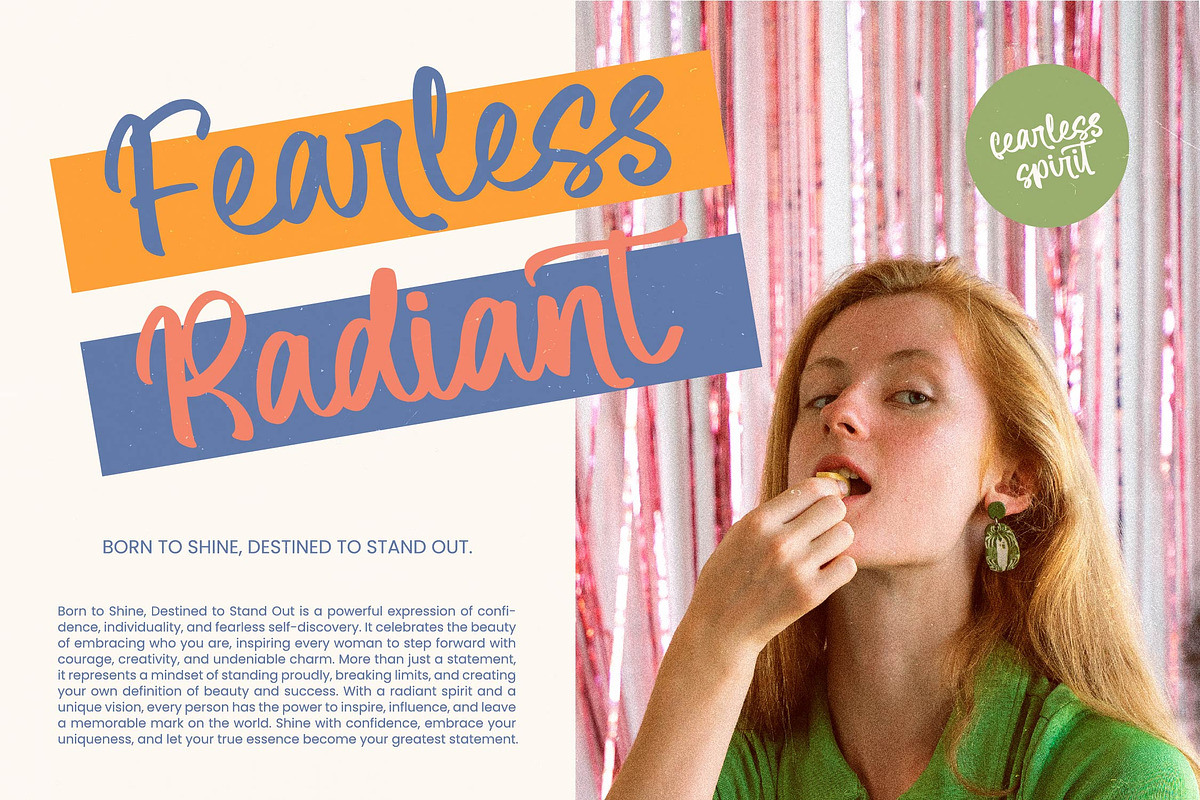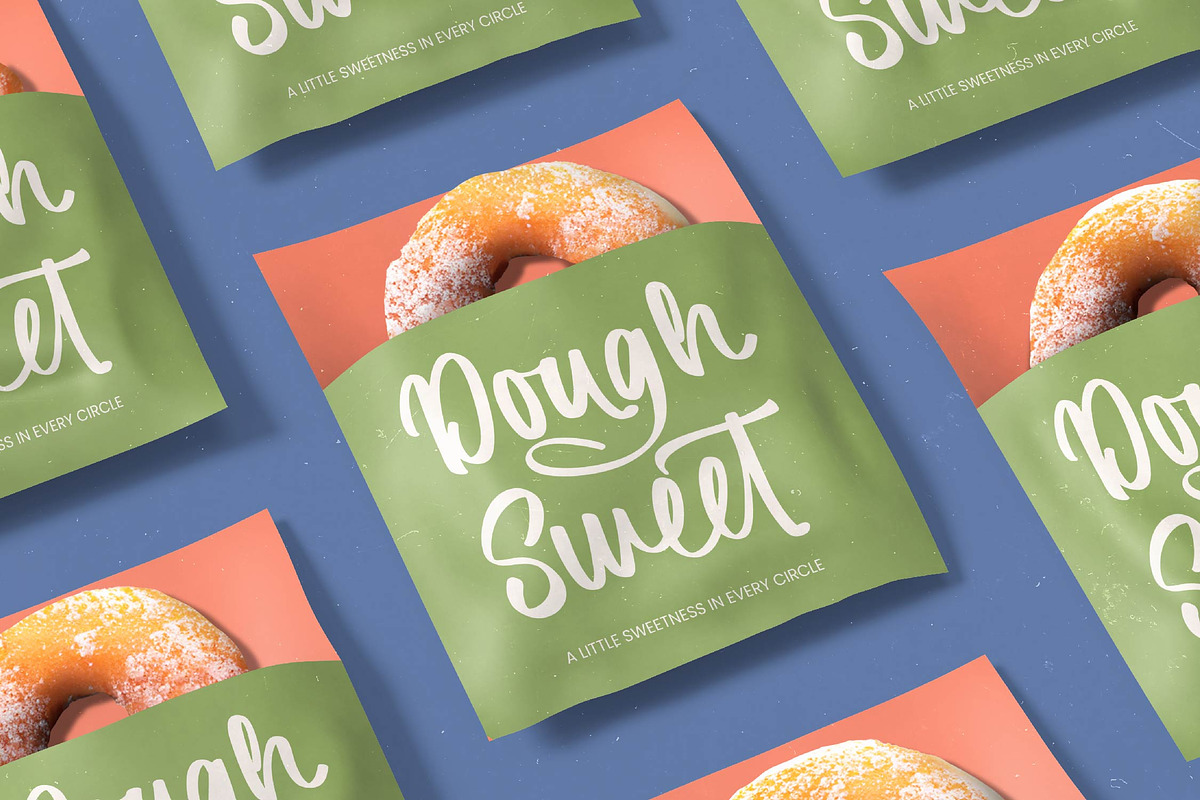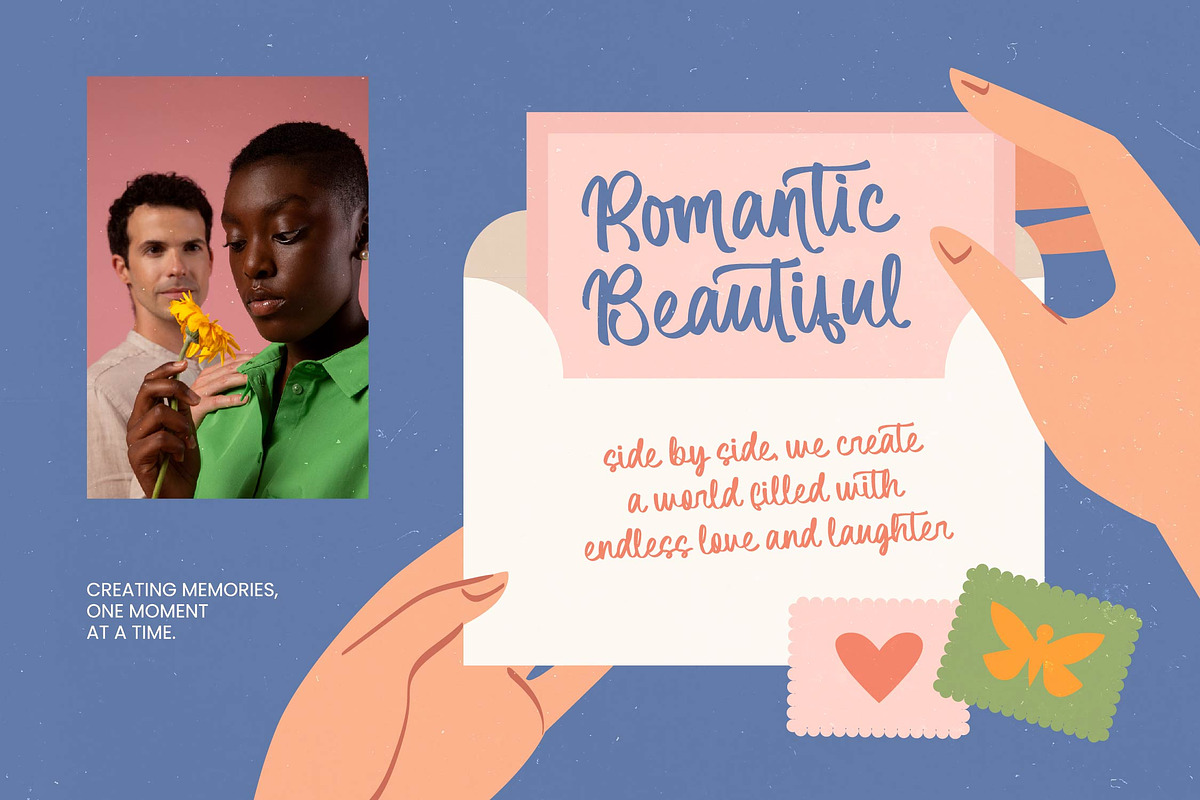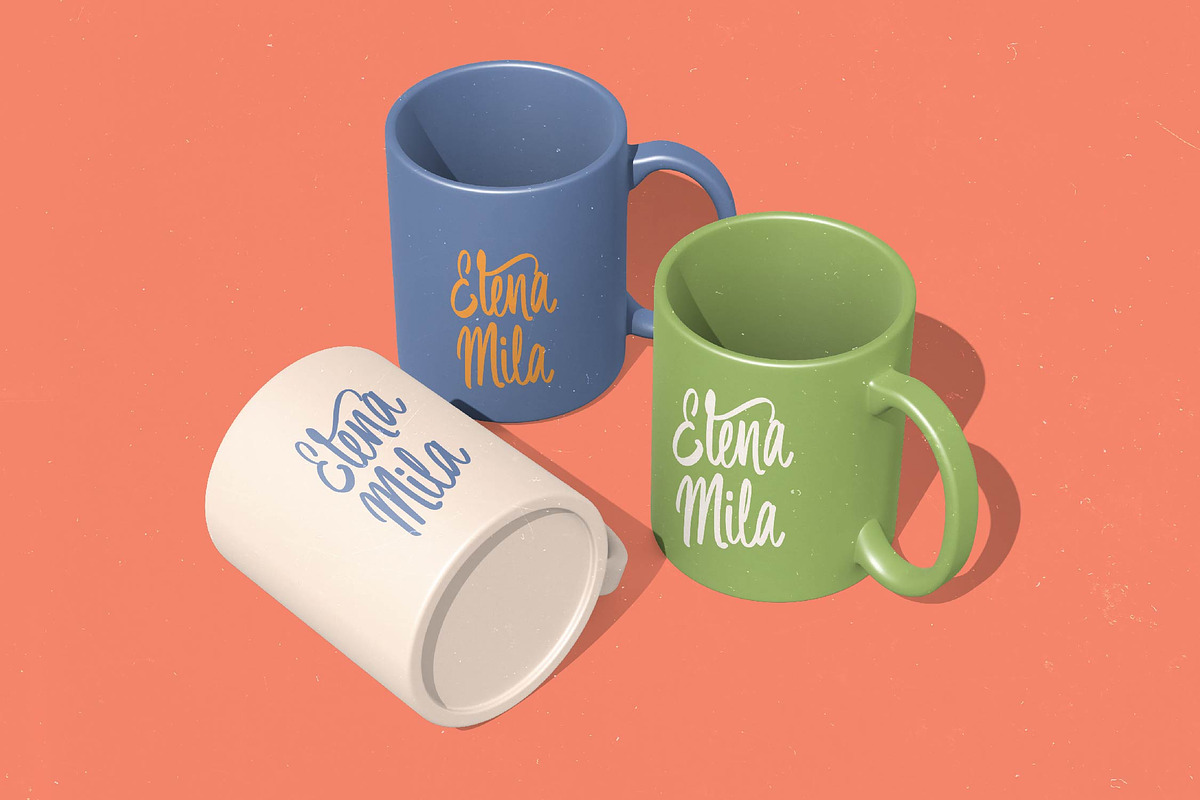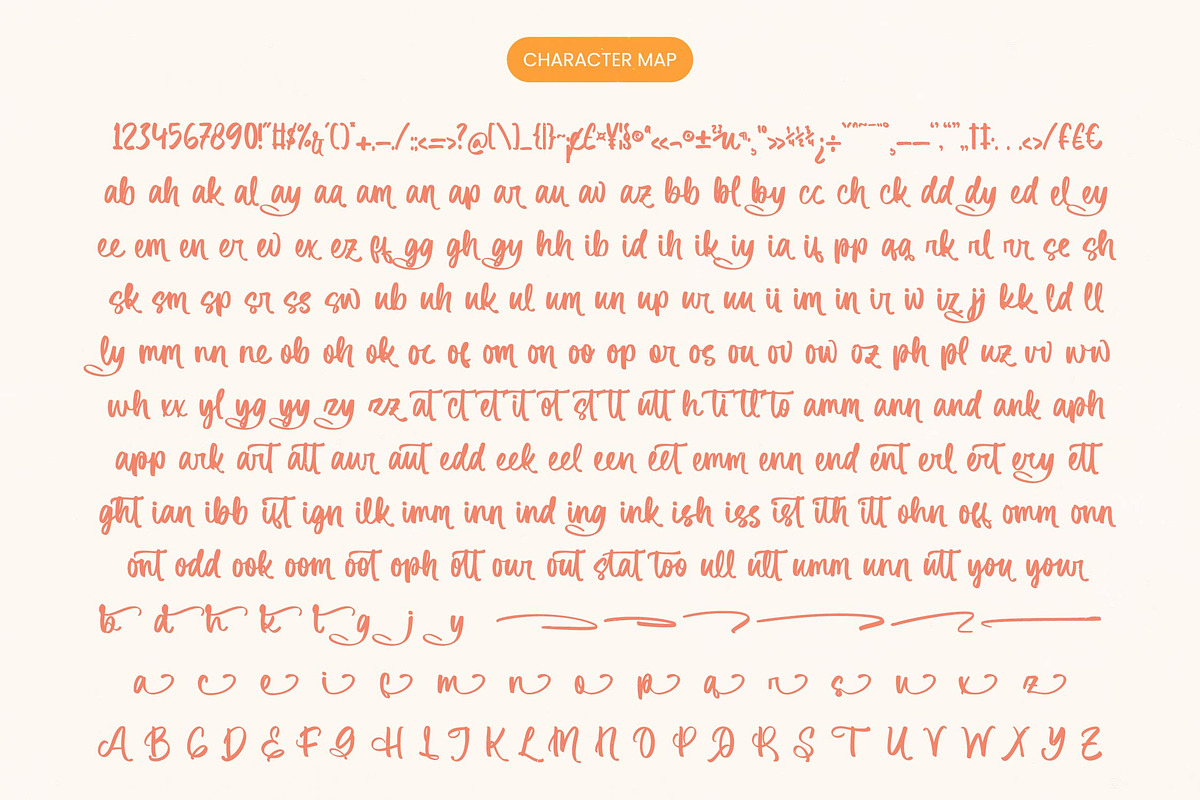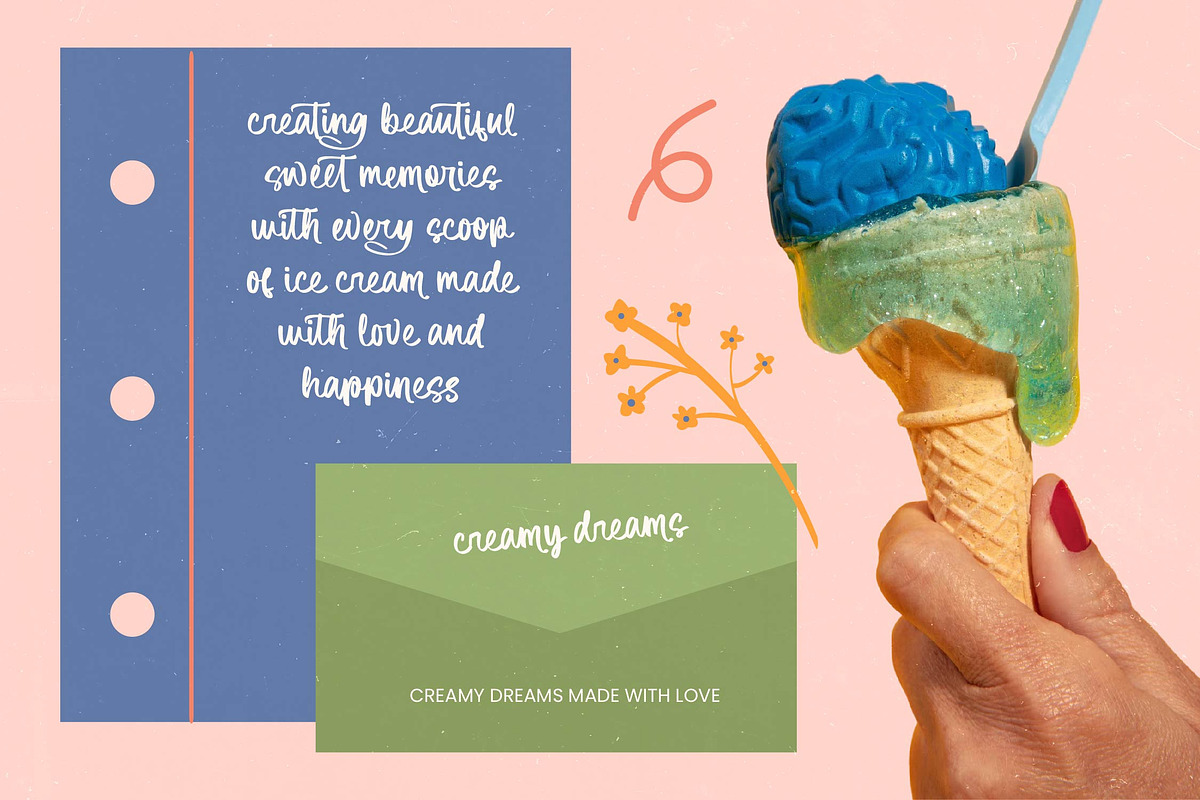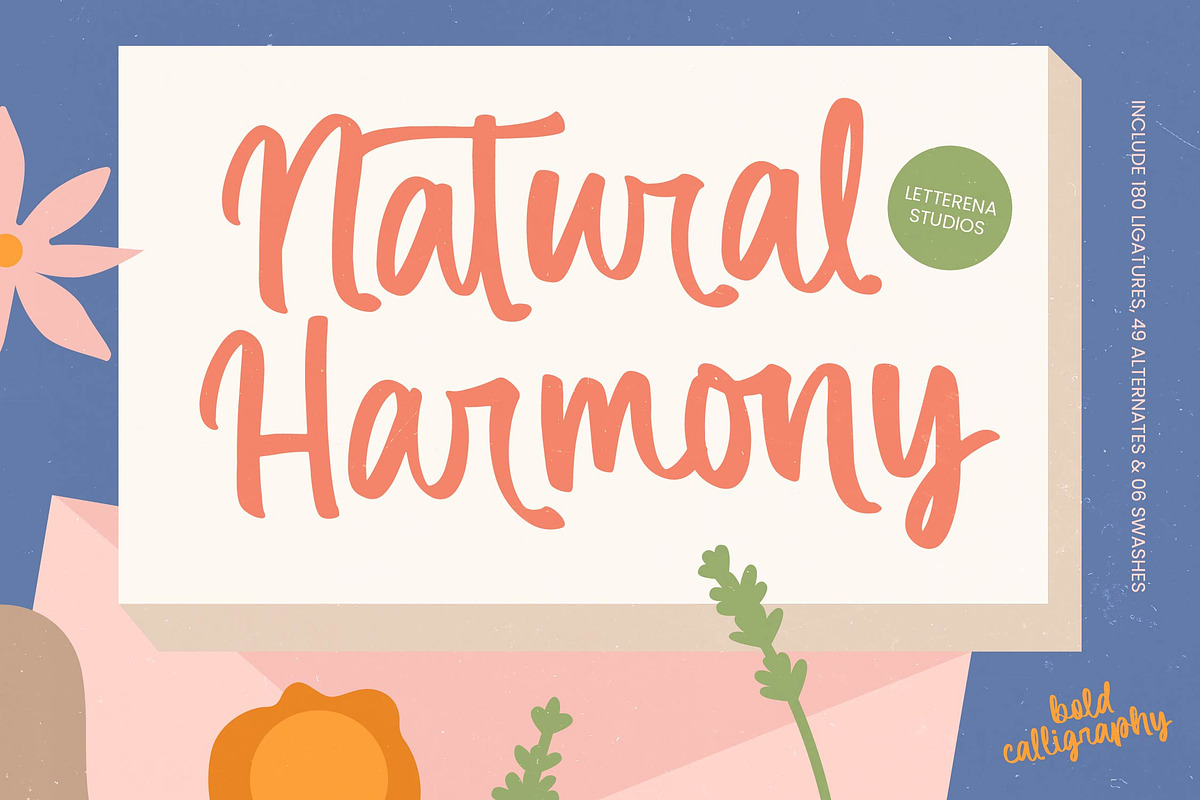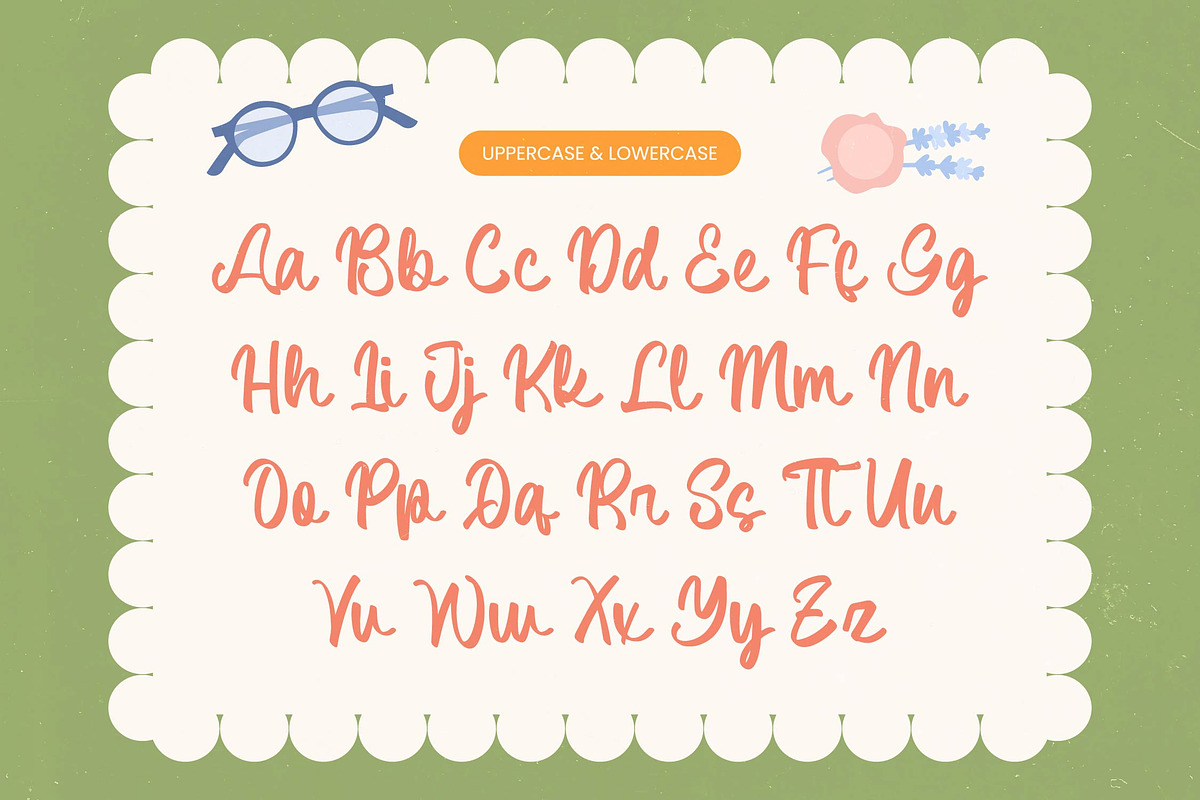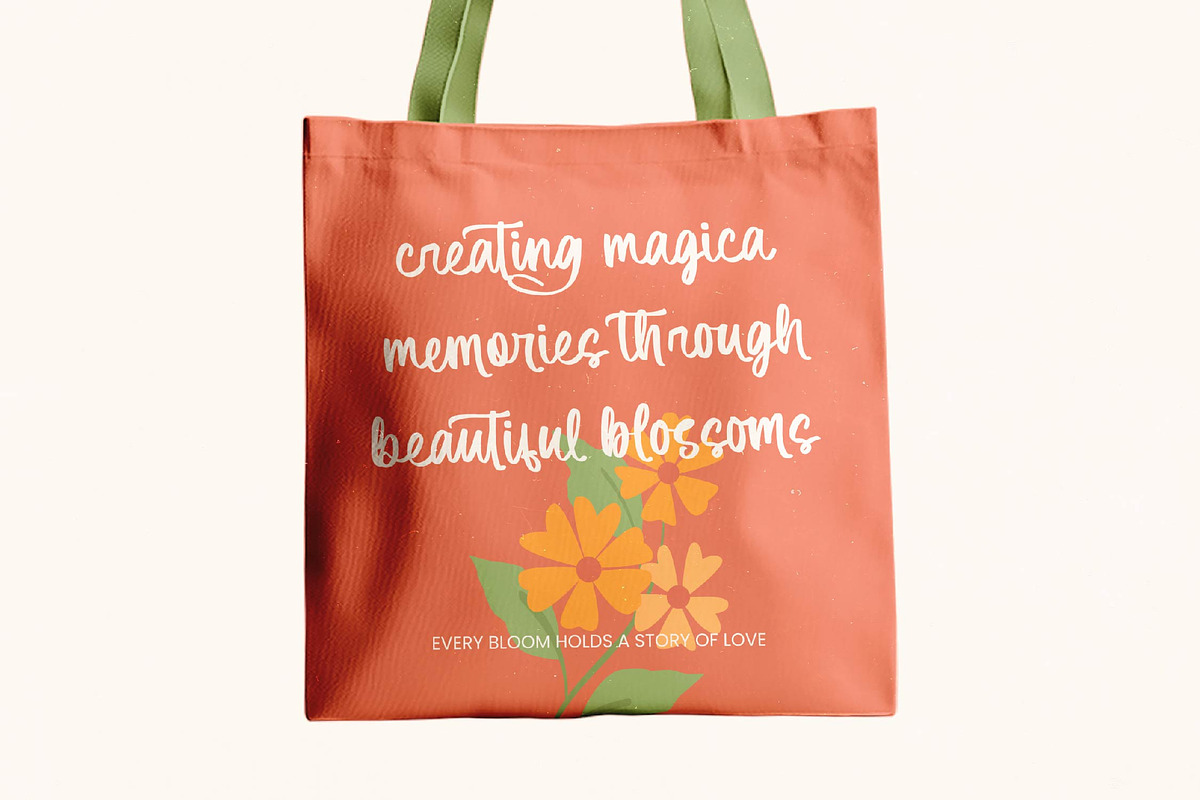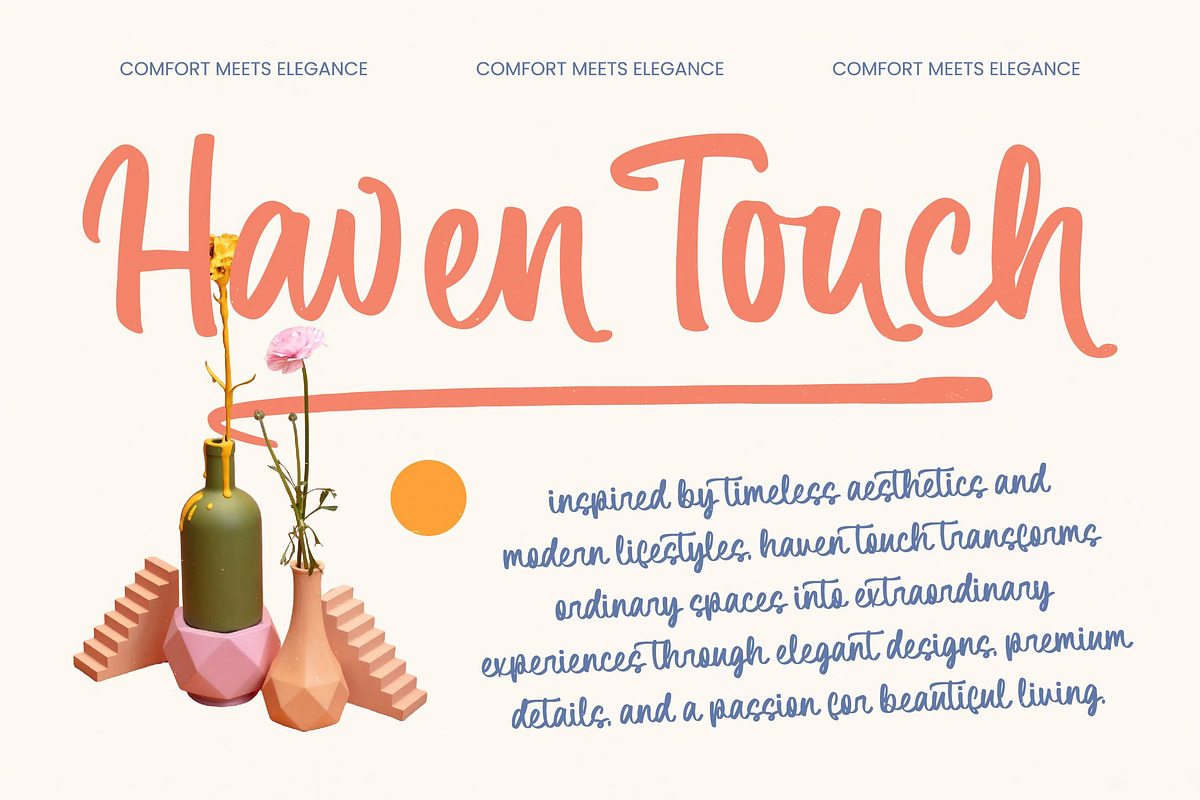
Natural Harmony Bold Calligraphy
Natural Harmony - Bold Calligraphy
Elevate your creative vision with a typeface that embodies organic elegance and rhythmic movement through every stroke. Natural Harmony - Bold Calligraphy is a masterclass in handcrafted aesthetic, blending the warmth of traditional ink-work with a modern, high-impact presence. Its bold weight ensures maximum legibility while maintaining an artistic flair that feels both personal and professional, making it an essential addition to any designer's toolkit seeking to balance fluidity and strength.
Precision-engineered for high-impact visual storytelling, this font is the ultimate choice for professionals seeking a sophisticated identity. Natural Harmony - Bold Calligraphy is perfect for luxury branding, premium packaging, and editorial design where a distinctive human touch is required. Whether you are crafting high-end cosmetics labels, boutique logos, or inviting lifestyle graphics, this typeface delivers a seamless blend of style and substance that resonates with discerning audiences globally.
Unlock unparalleled creative freedom with an extensive suite of OpenType features, including 180 ligatures and numerous stylistic alternates that allow for endless customization. With its extensive multilingual support, Natural Harmony - Bold Calligraphy adapts seamlessly across global markets, making it incredibly versatile for international projects and diverse linguistic needs. This technical adaptability ensures that your brand’s message remains consistent and visually compelling, regardless of the geographical borders your business crosses.
Invest in a versatile design asset that bridges the gap between artisanal charm and commercial scalability with ease. Natural Harmony - Bold Calligraphy provides the visual presence necessary to stand out in a crowded marketplace, offering a polished finish to any creative endeavor. By choosing Natural Harmony - Bold Calligraphy, you are securing a premium typographic solution that guarantees your message is delivered with unmistakable character, professionalism, and timeless appeal.